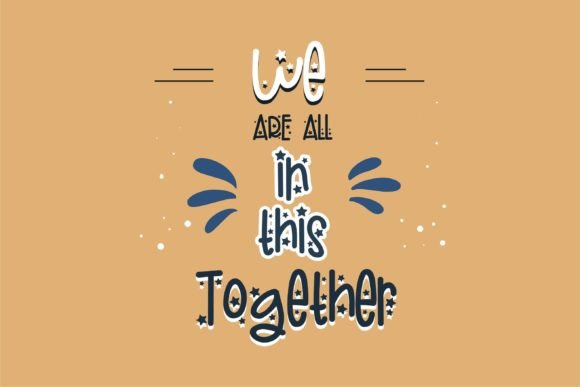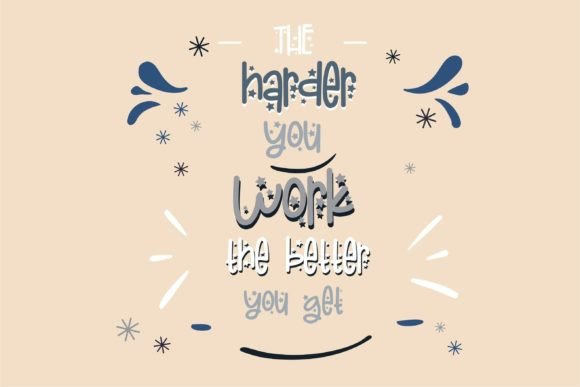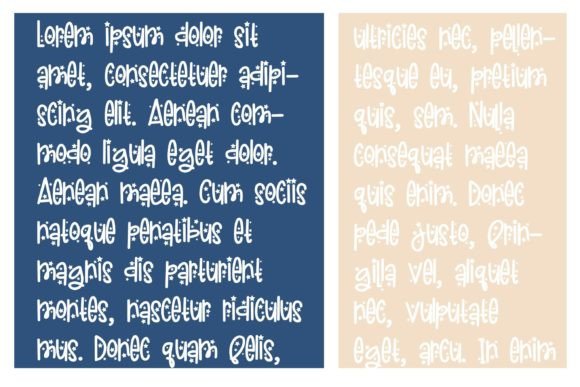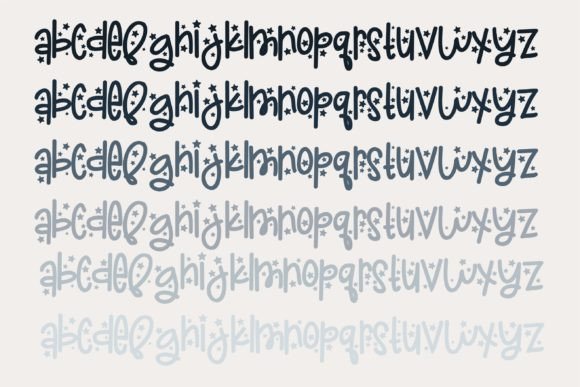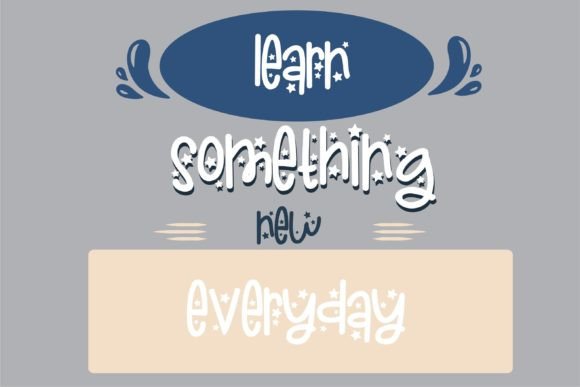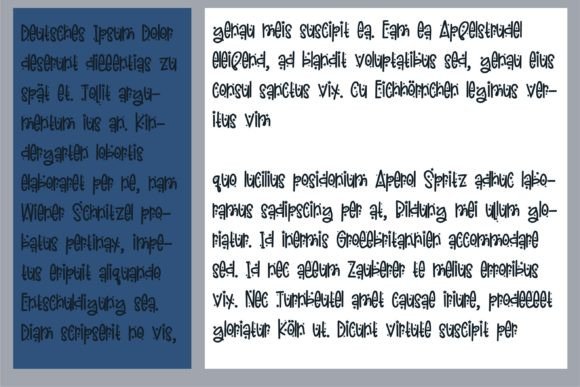
Star Fall Font
“Star Fall Font: Joyful and Playful Handwritten Delight
Introducing Star Fall, a fun and friendly handwritten font designed to infuse your creative projects with a touch of joy and playfulness. Whether you’re working on cartoon-related designs, children’s games, quotes, titles, brand names, book covers, posters, or any creation that requires a joyful vibe, Star Fall is a delightful choice. This font is not just a typeface; it’s a design asset that adds a sense of fun and friendliness to your work.
The joyful and playful delight of Star Fall shines through, making it an excellent choice for a wide range of creative applications. The handwritten style of the font creates a whimsical and inviting visual experience.
For cartoon-related designs and children’s games, Star Fall becomes a standout choice, infusing a sense of joy and playfulness into your text. The font’s friendly and fun style contributes to a visually pleasing and memorable design.
In various creative projects such as quotes, titles, brand names, and posters, Star Fall serves as a delightful element, creating a visual impact with its playful design. Its versatile nature adds a touch of joy to your creative endeavors.
Star Fall’s suitability extends to a wide array of design applications, making it ideal for various projects that require a fun and friendly touch. The font’s handwritten and playful style enhances the overall aesthetics, creating a visually pleasing and memorable experience.
In conclusion, Star Fall is more than just a typeface; it’s a design companion that brings joyful playfulness to your creative toolkit. Let Star Fall be the artistic touch that adds a sense of fun to the beauty of your projects. Embrace the whimsical and friendly charm of Star Fall, and watch as it transforms your ideas into visually enchanting and memorable experiences.”